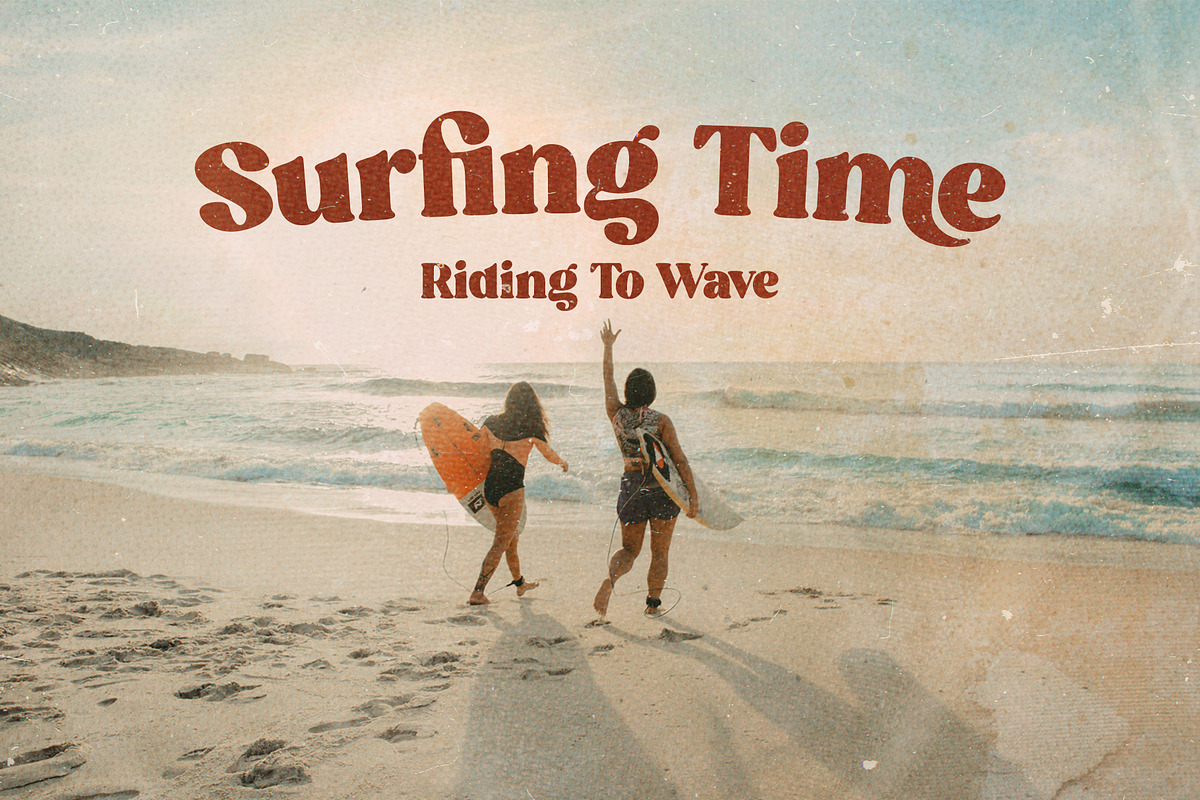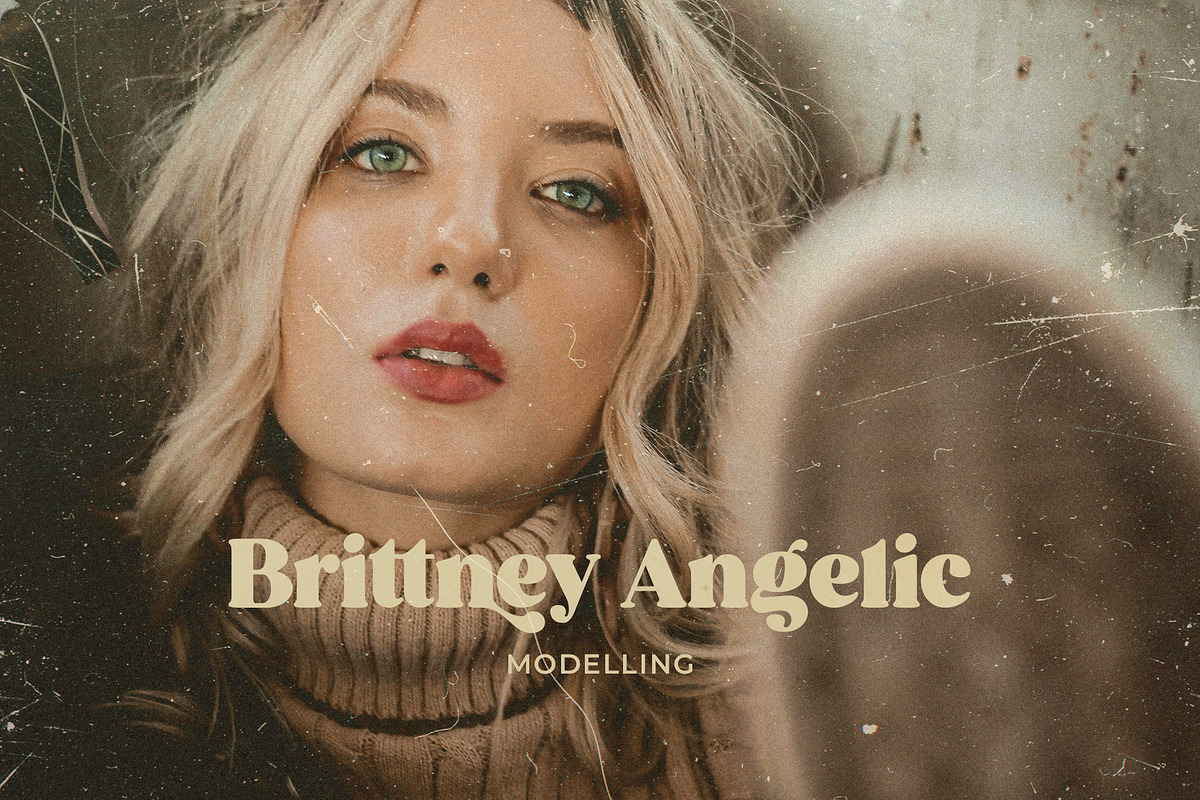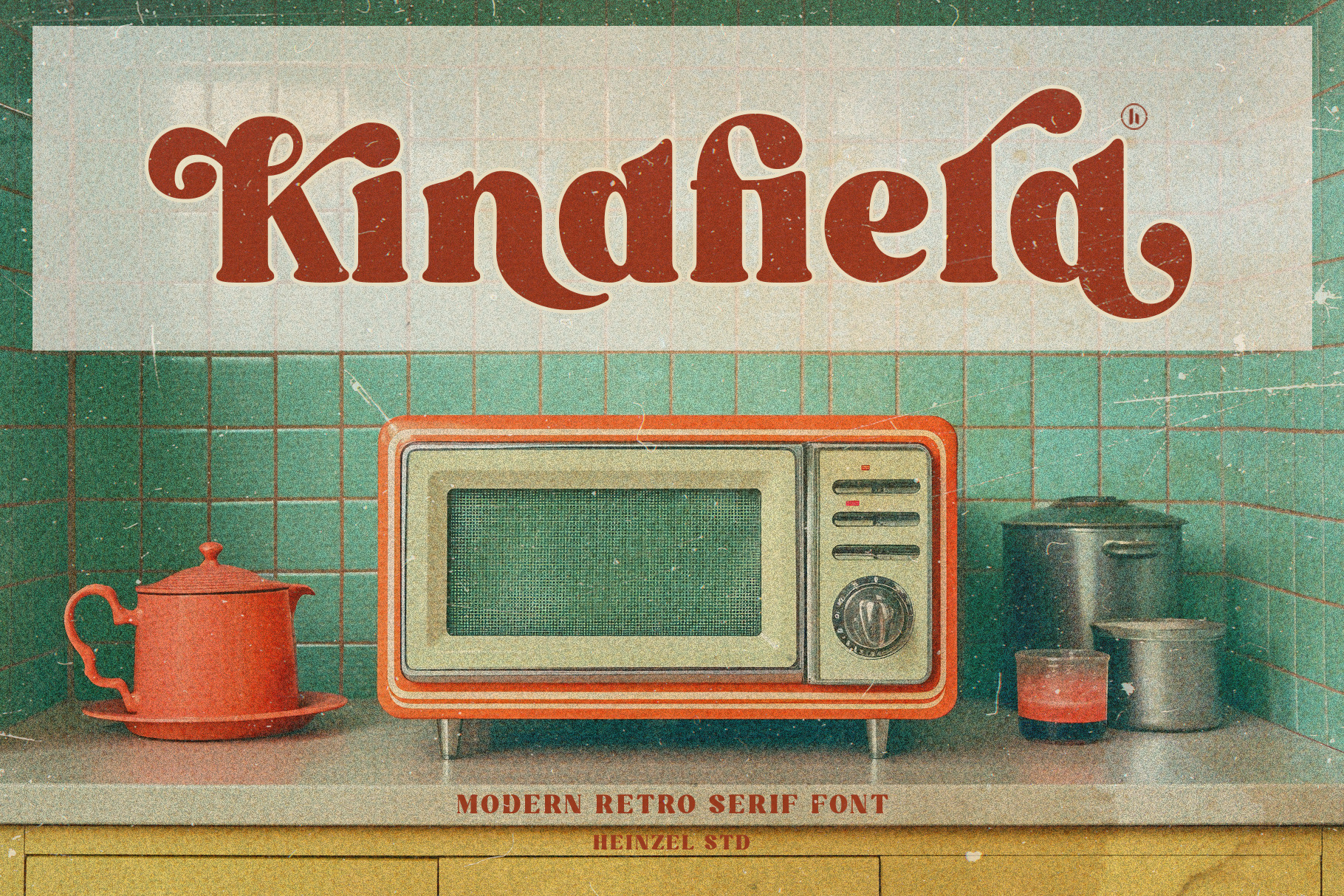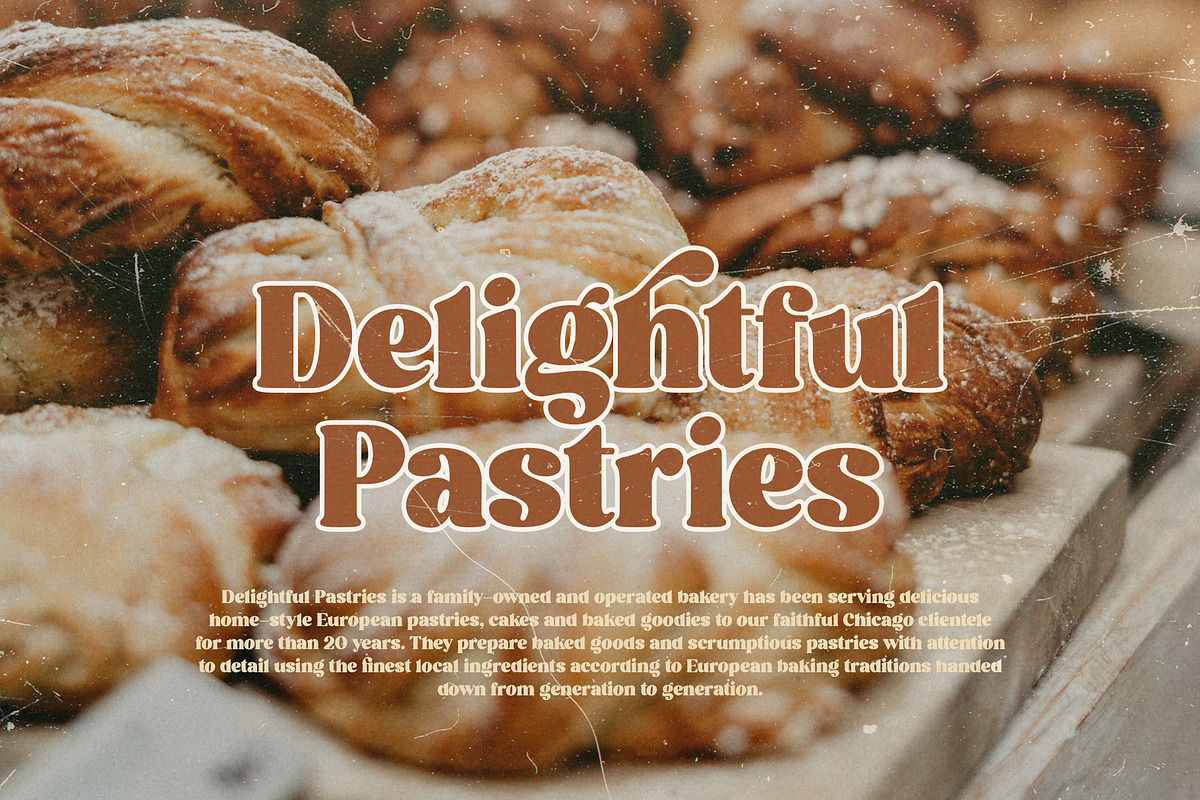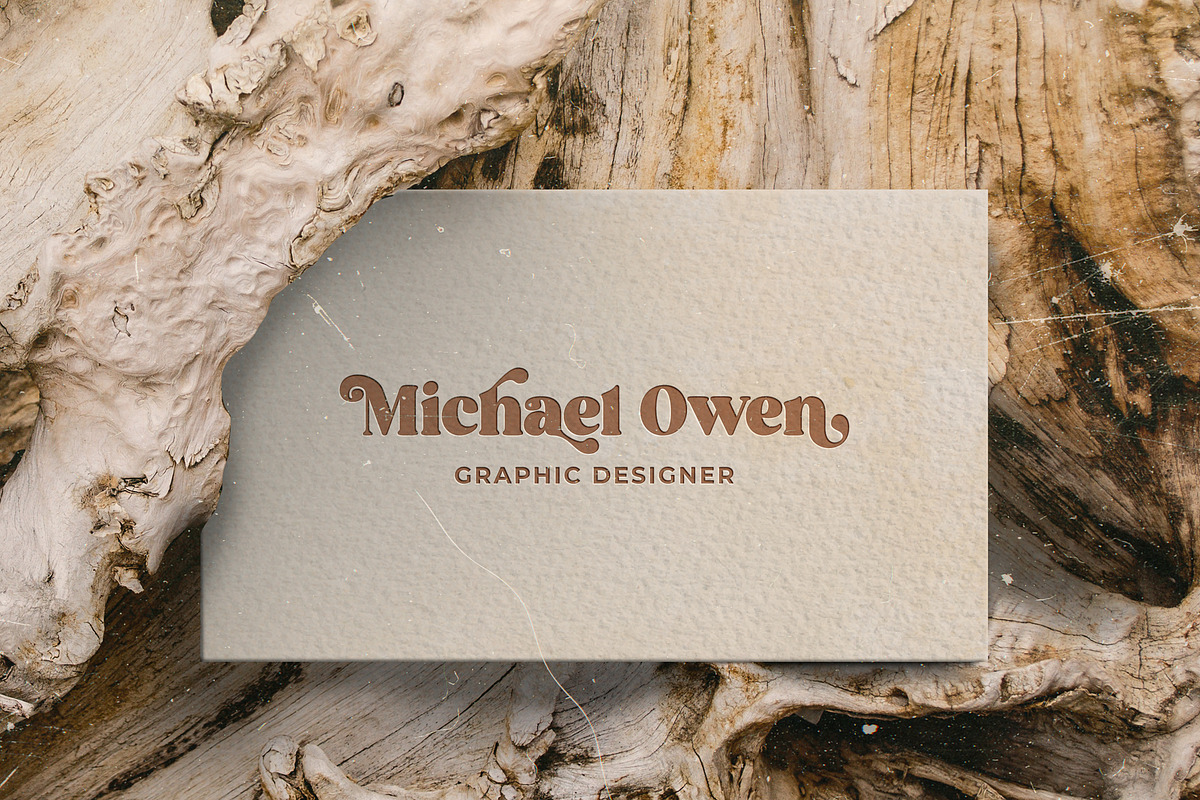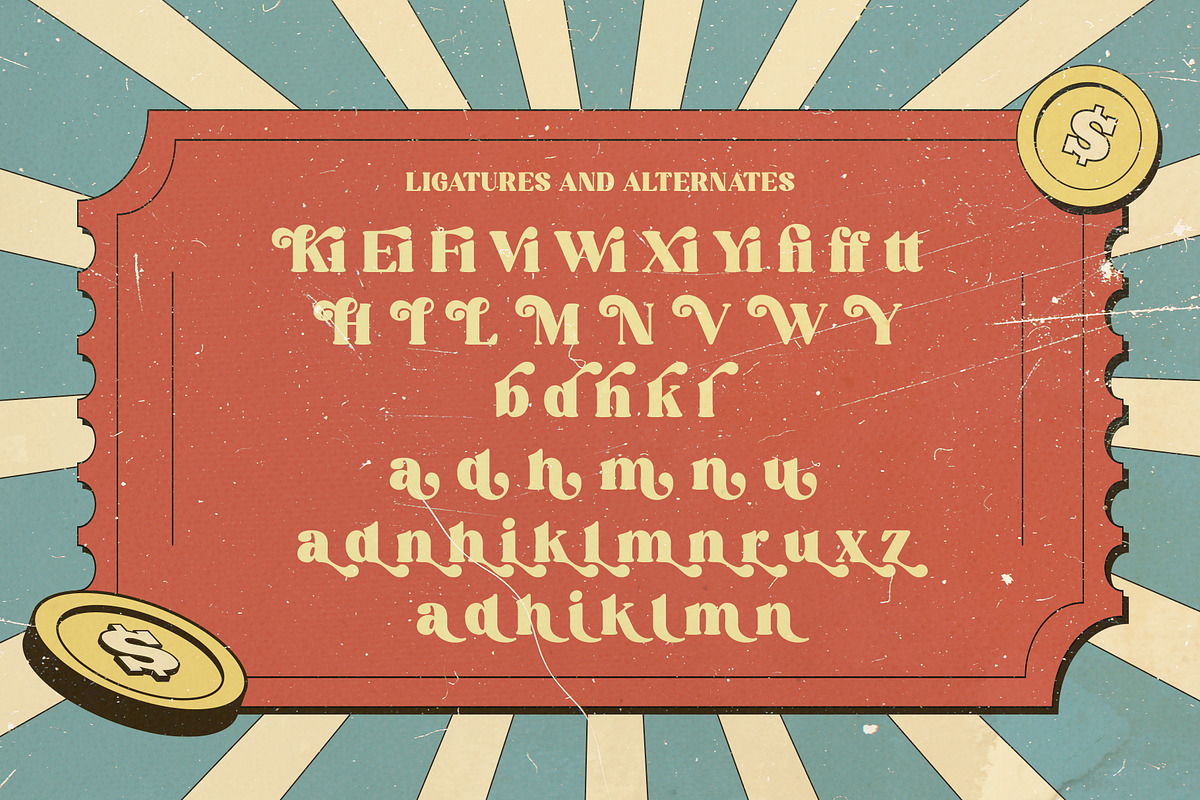
Kindfield Nostalgic Retro Serif Font
Kindfield is a retro serif font with a bold, expressive, and nostalgic character. Inspired by vintage typography and retro design, it combines classic serif details with playful curves and distinctive letterforms.
Its strong and stylish appearance makes Kindfield a great choice for logos, branding, posters, packaging, editorial designs, magazine covers, apparel, labels, social media graphics, and vintage-inspired projects.
Kindfield is designed to make headlines and display text stand out while keeping a refined and easy-to-read look. Its retro personality works especially well for 70s-inspired designs, vintage branding, lifestyle products, restaurant graphics, fashion projects, and creative advertising.
Whether you're creating a bold brand identity or adding a nostalgic touch to your design, Kindfield brings a unique modern-retro feel to every project.